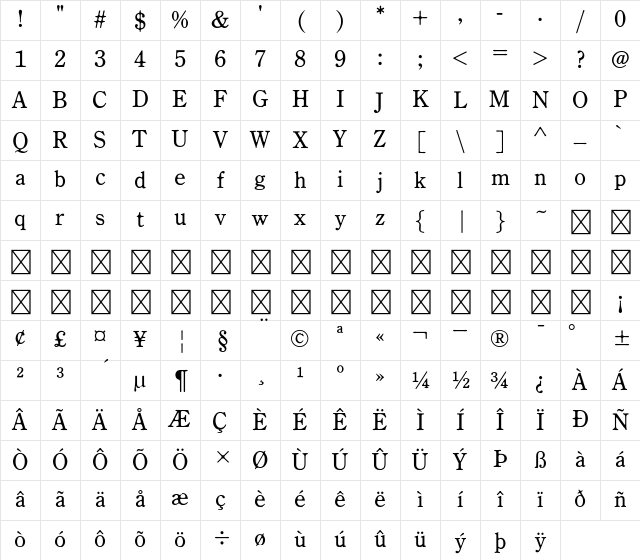
A P-OTF Shuei NijimiMin StdN L
Style: L
Designer: Dai Nippon Printing Co., Ltd.
Design Context for A P-OTF Shuei NijimiMin StdN
A P-OTF Shuei NijimiMin StdN is a composed and adaptable typeface that performs quietly and consistently across a wide range of design contexts.
Pro Tip: Use A P-OTF Shuei NijimiMin StdN in both headline and body roles to test its range before committing to a single application.